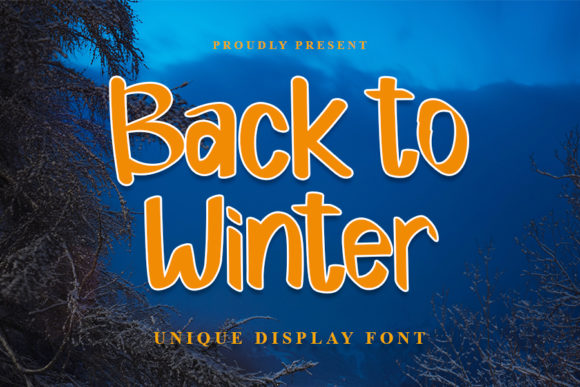
Discover the Charm of Back to Winter Font: Elevate Your Designs with a Relaxed and Neat Display Font
Are you on the hunt for a font that exudes a sense of calmness and simplicity, yet screams modernity and trendiness? Look no further than the Back to Winter Font. This delightful display font is making waves in the design community for its unique blend of relaxation and neatness, making it the perfect addition to any design project. In this article, we’ll dive into the world of Back to Winter Font, exploring its features, benefits, and uses, as well as provide tips on how to make the most of this versatile font.
What is Back to Winter Font?
Back to Winter is a relaxed and neat display font that boasts a simple and natural style. Its understated elegance and effortless charm make it an excellent choice for designers looking to create trendy and modern designs. Whether you’re working on a logo, branding materials, social media graphics, or any other visual project, Back to Winter Font is sure to impress.
Key Features of Back to Winter Font
- Simple and Natural Style: Back to Winter Font features a clean and organic design that makes it perfect for creating designs that require a subtle yet impactful touch.
- Relaxed and Neat: The font’s relaxed and neat appearance ensures that your designs look polished and professional, without appearing too formal or rigid.
- Trendy and Modern: Back to Winter Font is designed to keep up with the latest design trends, making it an excellent choice for designers who want to stay ahead of the curve.
- Versatile: This display font can be used for a wide range of design projects, from logos and branding materials to social media graphics and more.
Benefits of Using Back to Winter Font
So, why should you choose Back to Winter Font for your next design project? Here are just a few benefits of using this amazing font:
- Easily Readable: The font’s clear and simple design ensures that your text is easily readable, even at smaller sizes.
- Highly Versatile: Back to Winter Font can be used for a wide range of design projects, making it a great addition to any designer’s toolkit.
- Time-Saving: With Back to Winter Font, you can create professional-looking designs in no time, saving you hours of time and effort.
- Unique and Creative: This font’s unique style and charm can help your designs stand out from the crowd and leave a lasting impression on your audience.
Tips for Using Back to Winter Font
Now that you know why Back to Winter Font is an excellent choice for your design projects, here are some tips on how to make the most of this amazing font:
- Pair it with Other Fonts: Experiment with pairing Back to Winter Font with other fonts to create a unique and visually appealing design.
- Use it for Headings and Titles: This display font is perfect for headings and titles, where you want to make a bold statement and grab the reader’s attention.
- Experiment with Colors: Back to Winter Font looks great in a variety of colors, so don’t be afraid to experiment and find the perfect hue for your design.
- Keep it Simple: Remember, the beauty of Back to Winter Font lies in its simplicity, so keep your design clean and uncluttered to let the font shine.
In conclusion, Back to Winter Font is an excellent choice for designers looking to create trendy and modern designs. Its simple and natural style, combined with its relaxed and neat appearance, make it perfect for a wide range of design projects. With its versatility, readability, and unique charm, Back to Winter Font is sure to become a staple in any designer’s toolkit. So why wait? Add Back to Winter Font to your next design project and experience the difference for yourself!